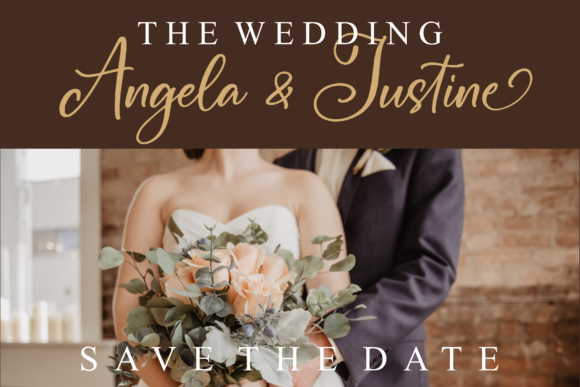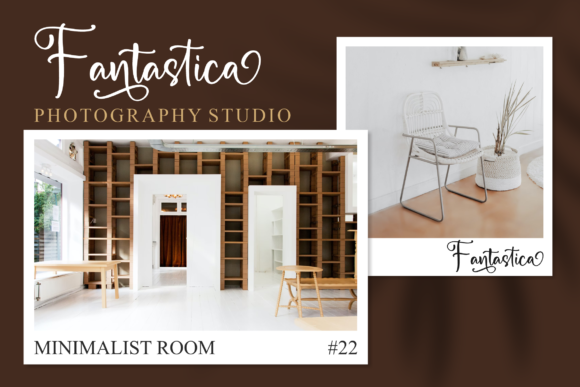
Salminda Font
db-ku.com - Script & Handwritten -- Salminda is a new modern script calligraphy typeface with its own unique flow and elegant personality. Is suitable for all your design project needs such as logo design, branding, covers, posters, and more.